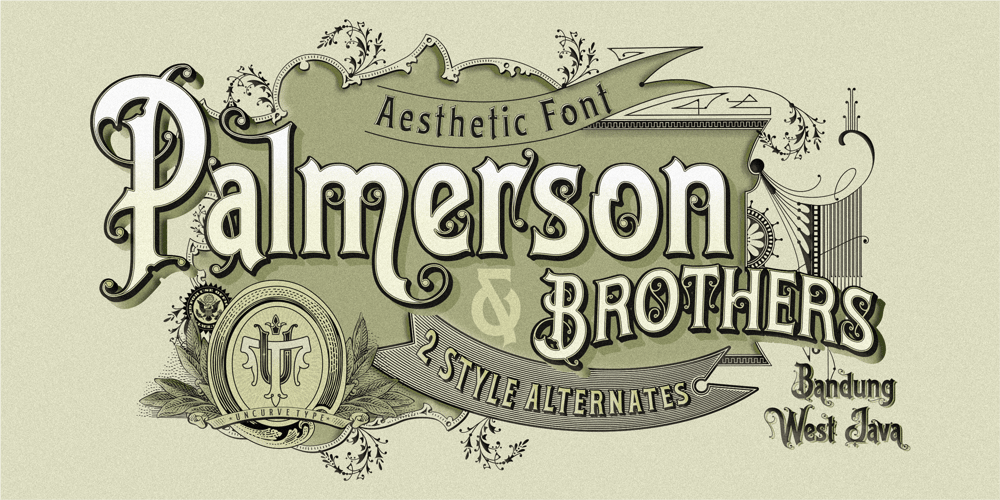
Palmerson Font Family was designed by Ferry Septian and published by Uncurve. Palmerson contains 1 styles and family package options. Palmerson is an aesthetic vintage font, inspired from the past typography, elegant signage, gold leaf , sign painting and old label product. Palmerson comes with tons of alternates characters to make more eye cacthy . Two different size uppercase and one lowercase it’s make more choice to combine and find some more great typography. Palmerson Font is suitable for authentic logos, headings, sign painting, posters,letterhead, branding, magazines, album covers, book covers, movies, apparel design, flyers, greeting cards, product packaging, and more. Finally BOOM..!! you get a great design for your project.